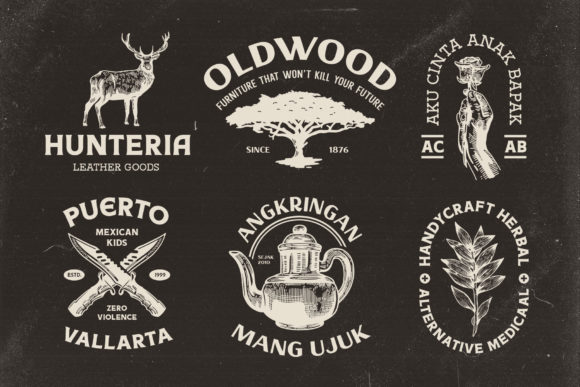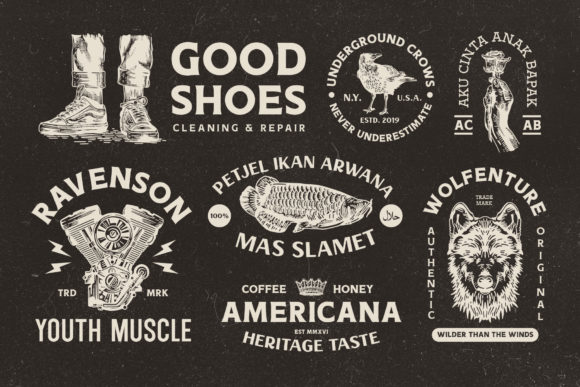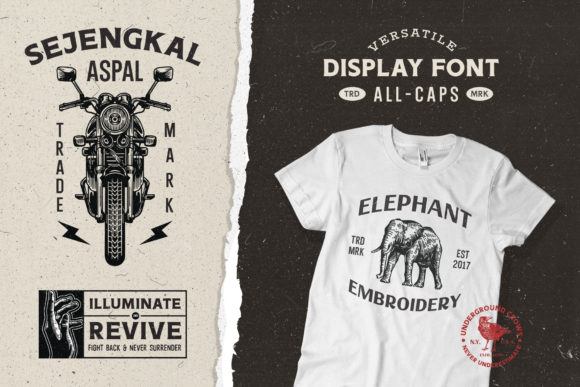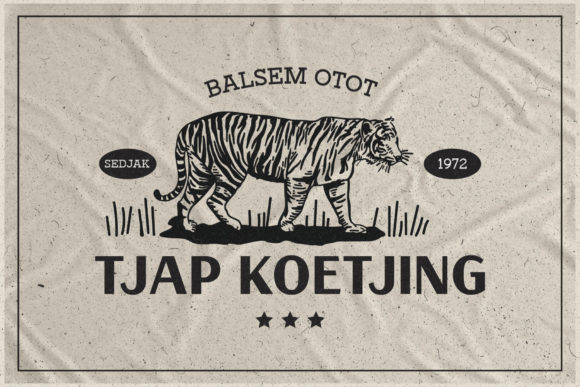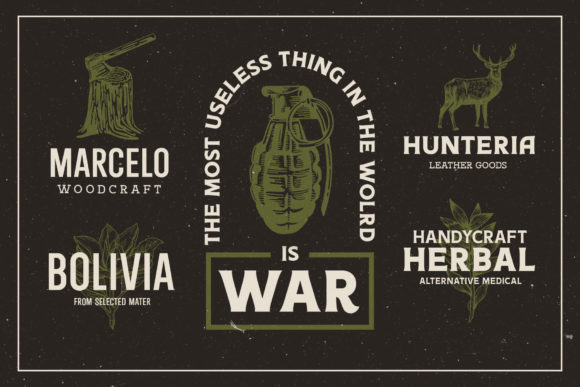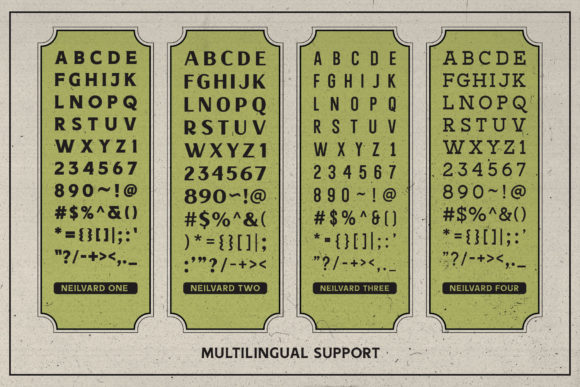
Introduction to Neilvard Font
Neilvard is a simple and casual display font with an undeniably clean feel.
With its neat and beautiful arrangement of letters, this typeface will look outstanding in both formal and non-formal designs .
Key Features of Neilvard Font
Why Choose Neilvard Font?
Neilvard Font offers exceptional quality and versatility, making it a valuable addition to your design toolkit. Whether you’re creating for personal projects or commercial use, Neilvard Font delivers professional results.